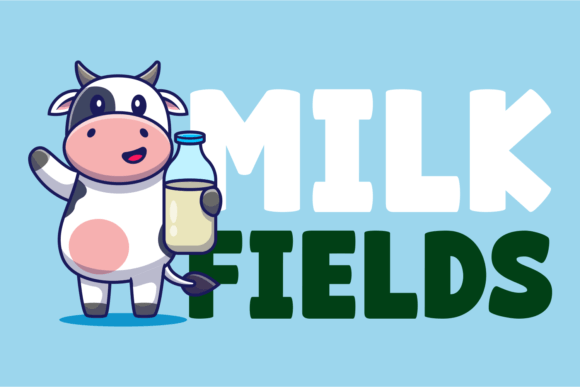
Milk Fields: A Bold Display Font That Commands Attention
It was one of those mornings—coffee in hand, blank brand board open in Figma, and a new client brief sitting quietly in my inbox: a small-batch skincare studio launching locally. They wanted something warm but confident, handmade but polished, grounded but memorable. No corporate sterility. No overdesigned clutter. Just clarity, character, and quiet strength. That’s when I reached for Milk Fields.
I’d seen it before—on a font marketplace thumbnail, thick and smooth, almost tactile in its presence. But seeing it in context? That’s where it clicked. I dropped it into the logo mockup as a test: “Botanical Glow” in all caps, centered, no embellishment. Instantly, the composition felt anchored—not heavy, but sure. The letters are generously rounded, with generous counters and consistent stroke weight. There’s no sharp contrast or dramatic tapering; instead, Milk Fields leans into soft confidence. It’s modern without being cold, playful without tipping into whimsy.
What makes Milk Fields work so well for real branding isn’t just how it looks—it’s how it behaves. As a display font, it’s not built for paragraphs. It’s built for moments that need to land: a shop sign above a sunlit storefront, the foil-stamped name on a matte kraft label, the hero text on a homepage banner that loads in under two seconds. I tested it across formats—business cards, Instagram story templates, product stickers—and each time, it held its own. On a 2-inch sticker? Legible. On a 48-inch window decal? Unmistakable. Even at smaller sizes (down to ~24pt), the letterforms retain their friendliness and clarity—no pixelated edges, no awkward spacing collapses.
For this skincare project, I used Milk Fields strictly as the primary brand typeface—never for body copy, never for captions. That discipline actually strengthened the identity. Every time the client saw their name in Milk Fields, it carried the same emotional weight: calm authority, gentle boldness, human-scale craftsmanship. That consistency builds recognition faster than you’d expect. I’ve noticed it especially in print—on recycled paper labels, the thick strokes hold up beautifully, even with subtle texture or slight ink spread. No fragile serifs to vanish, no ultra-thin lines to break.
Pairing Milk Fields is intuitive, not intimidating. I landed on a clean, slightly warm sans serif for supporting text—something with open apertures and friendly proportions, like Poppins or Manrope. No need to overthink it. The contrast works because Milk Fields doesn’t compete; it invites. Its rounded geometry pairs naturally with geometric or humanist sans serifs, and even holds its own beside a restrained serif (think Lora or Merriweather) in editorial layouts—say, a printed zine or seasonal newsletter. I avoided script fonts here—not because they wouldn’t work, but because Milk Fields already carries enough warmth and personality on its own. Adding another expressive layer would dilute the focus.
In practice, I treated Milk Fields like a design collaborator—not just a tool. When we mocked up the shop’s front window, I adjusted tracking slightly to let the letters breathe in that wide, airy space. For Instagram posts, I kept line height generous and avoided stacking too much text beneath it. And for the product labels? I made sure the font size stayed above 18pt on the smallest variant—their lavender mist bottle is petite, but the name still needed to feel intentional, not cramped.
What surprised me most wasn’t how well Milk Fields looked—but how efficiently it communicated. Early feedback from the client wasn’t about aesthetics first; it was, *“That just feels like us.”* That’s the quiet power of a well-chosen display font. It doesn’t shout. It settles in. It gives a brand a posture—upright, approachable, unhurried.
If you’re choosing a display font for a logo, packaging system, or any touchpoint where first impressions matter, ask yourself: Does it support the feeling you want people to walk away with? Does it scale without losing soul? Does it pair easily without demanding attention away from your message? Milk Fields answers yes—to all three. It’s not flashy. It’s not trying to be everything. It’s simply a bold, smooth, easy-to-read typeface that does exactly what it promises: make titles, logos, and standout moments feel unmistakably present.
And honestly? That’s more than enough.